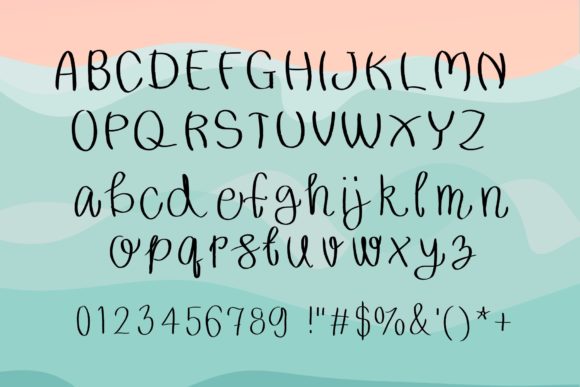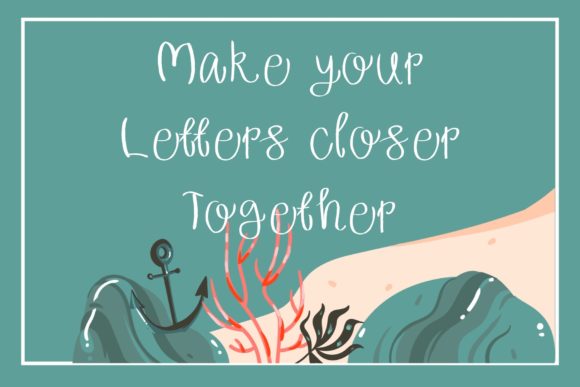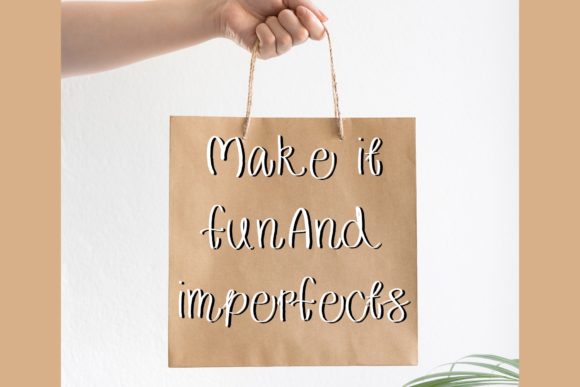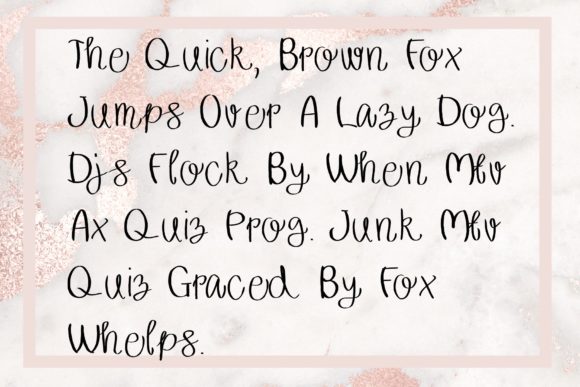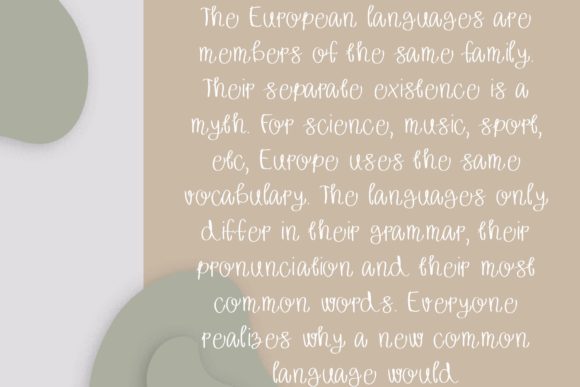
Eva Font: Elevate Your Designs with Elegance and Timeless Style
Are you on the hunt for a font that exudes elegance, sophistication, and a touch of timeless charm? Look no further than the Eva Font, a stunning flowing handwritten font that is sure to capture your heart. With its incredibly distinct style, Eva Font is the perfect addition to your favorite projects, allowing you to create spectacular designs that stand out from the crowd.
The Essence of Eva Font: Elegance and Sophistication
Eva Font is a beautifully crafted handwritten font that boasts an elegant touch, making it ideal for designers and crafters who want to add a touch of sophistication to their work. Its flowing lines and curves create a sense of movement and fluidity, giving your designs a dynamic and eye-catching appeal. Whether you’re working on a branding project, a wedding invitation, or a fashion blog, Eva Font is sure to elevate your design to new heights.
What Makes Eva Font So Special?
So, what sets Eva Font apart from other fonts out there? Here are just a few reasons why Eva Font is a cut above the rest:
- Unique and Distinct Style: Eva Font has an incredibly distinct and timeless style that is sure to make your designs stand out. Its elegant lines and curves create a sense of sophistication and refinement, making it perfect for high-end designs.
- Flowing Handwritten Script: Eva Font is a flowing handwritten font that has a natural, effortless feel to it. Its fluid lines and curves create a sense of movement and energy, making it perfect for designs that require a touch of dynamism.
- Versatile and Adaptable: Eva Font is incredibly versatile and adaptable, making it suitable for a wide range of design projects. Whether you’re working on a logo, a brochure, or a social media post, Eva Font is sure to fit the bill.
How to Use Eva Font in Your Designs
Using Eva Font in your designs is incredibly easy. Here are just a few tips to get you started:
- Pair it with Bold Fonts: Eva Font pairs perfectly with bold fonts, creating a striking contrast that adds visual interest to your designs.
- Use it for Headings and Titles: Eva Font is perfect for headings and titles, adding a touch of elegance and sophistication to your designs.
- Experiment with Colors: Eva Font looks stunning in a range of colors, from bold and bright to soft and pastel. Experiment with different colors to find the perfect fit for your design.
Why Designers and Crafters Love Eva Font
Eva Font has quickly become a favorite among designers and crafters, and it’s easy to see why. Here are just a few reasons why Eva Font is a popular choice:
- Easy to Read: Eva Font is incredibly easy to read, making it perfect for designs that require a clear and concise message.
- Highly Versatile: Eva Font is highly versatile, making it suitable for a wide range of design projects.
- Unique and Memorable: Eva Font has a unique and memorable style that is sure to make your designs stand out.
In conclusion, Eva Font is a stunning flowing handwritten font that is sure to elevate your designs to new heights. With its elegant touch, incredibly distinct style, and versatility, Eva Font is the perfect addition to your favorite projects. Whether you’re a designer, crafter, or DIY enthusiast, Eva Font is sure to become a favorite in your toolkit. So why wait? Fall in love with Eva Font today and start creating spectacular designs that showcase your unique style and creativity!